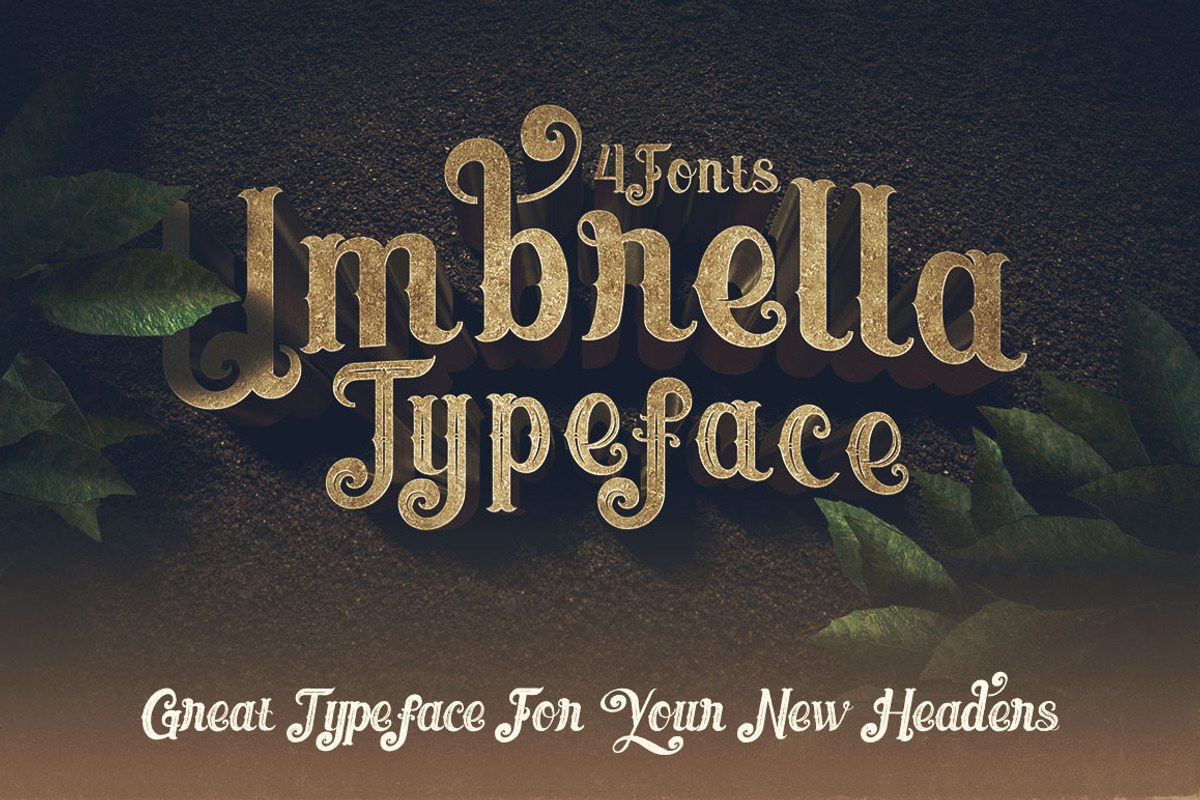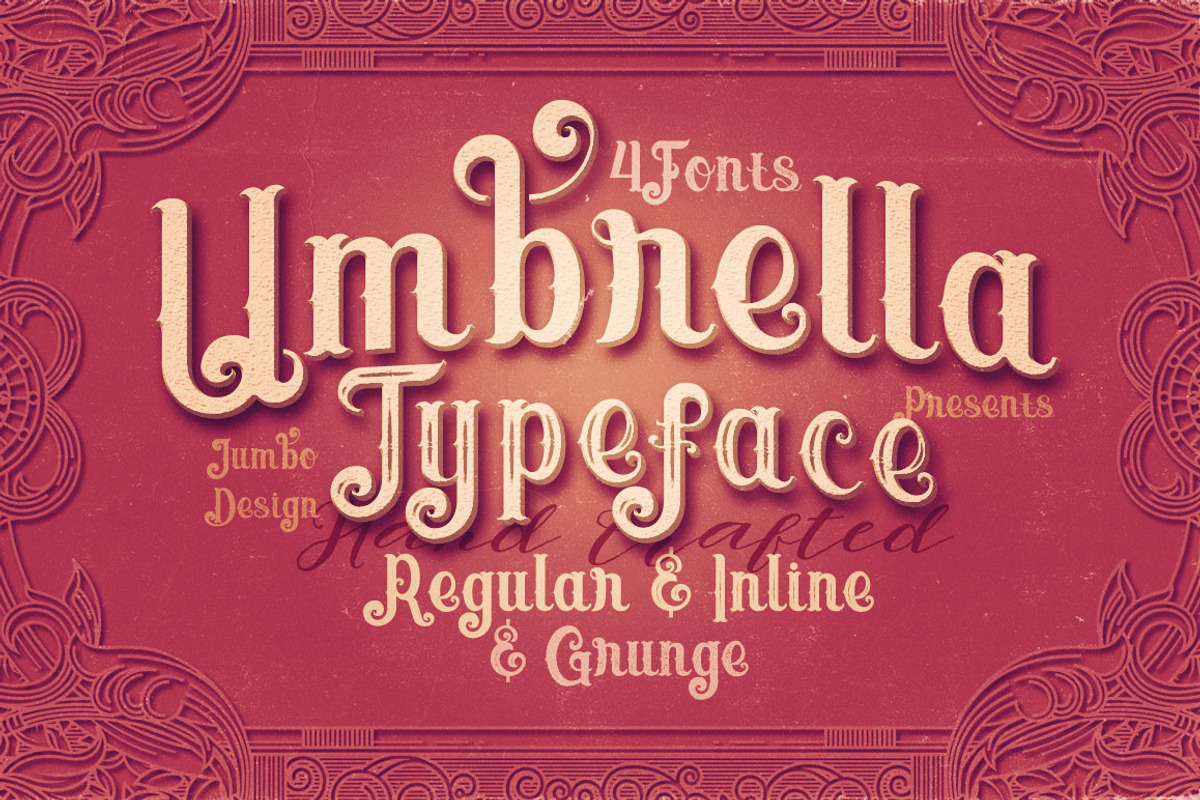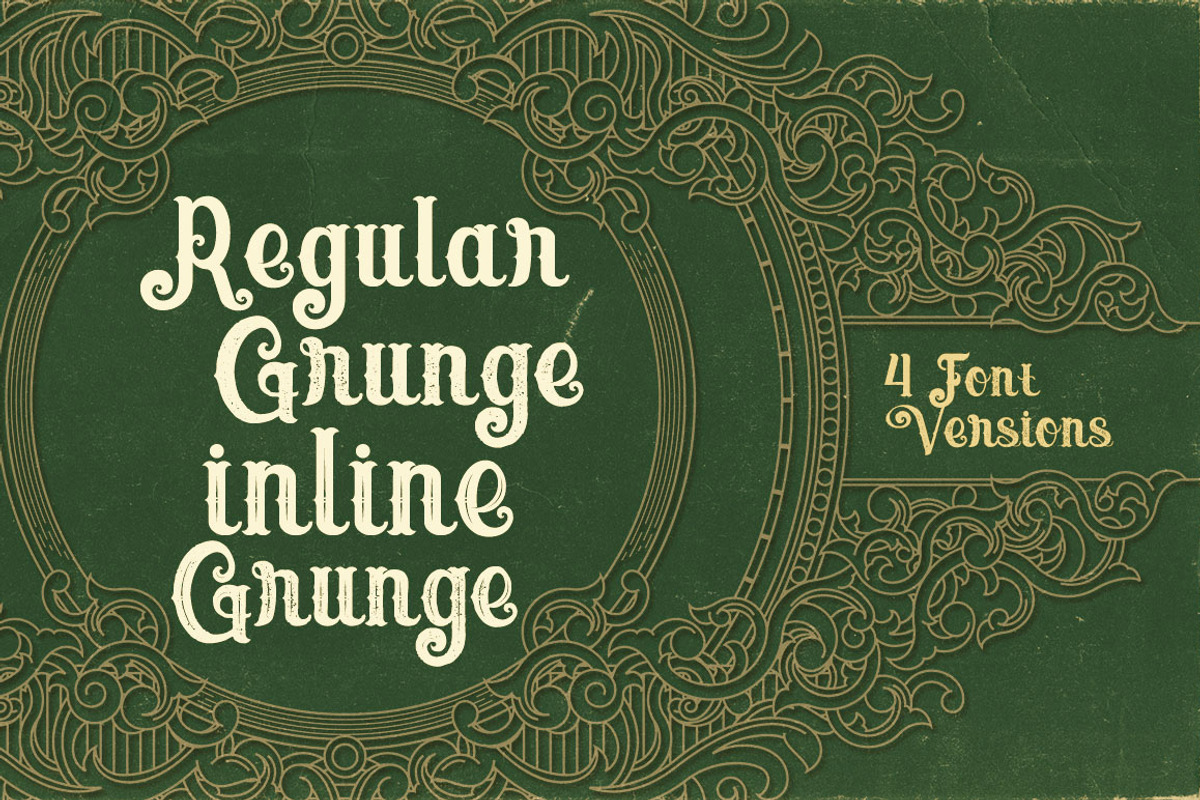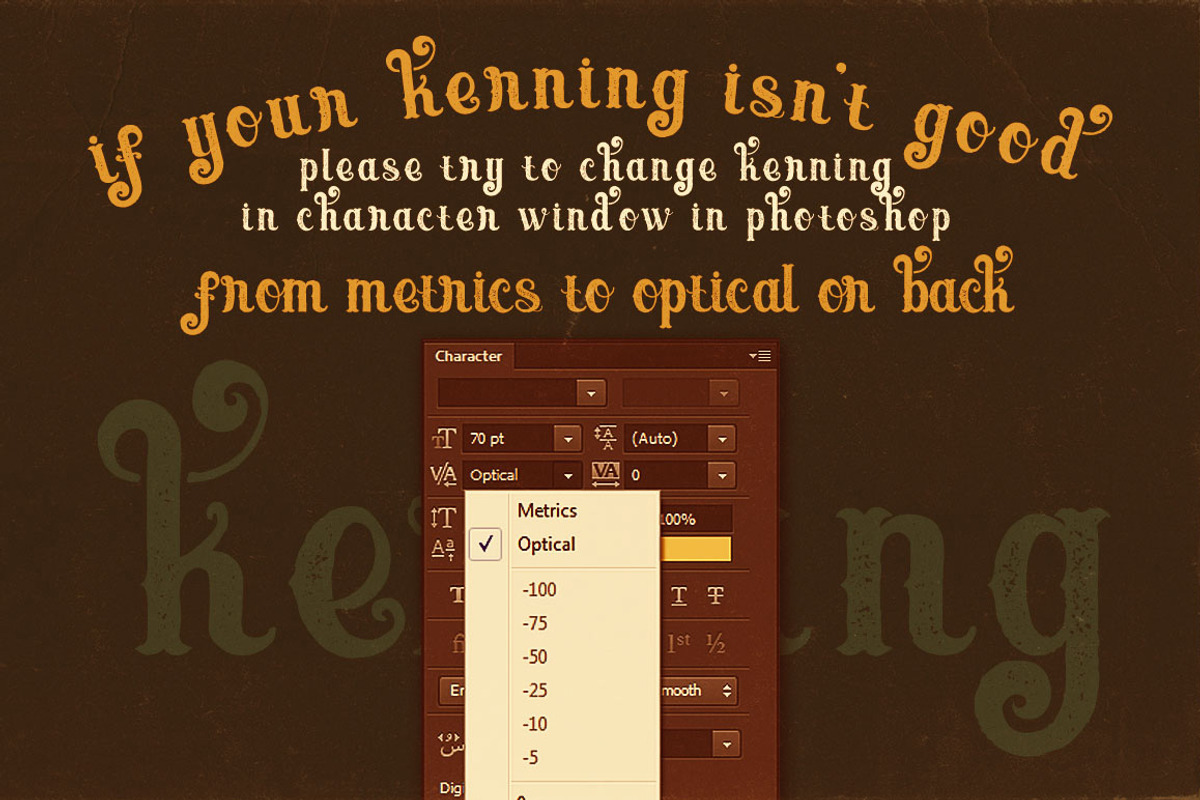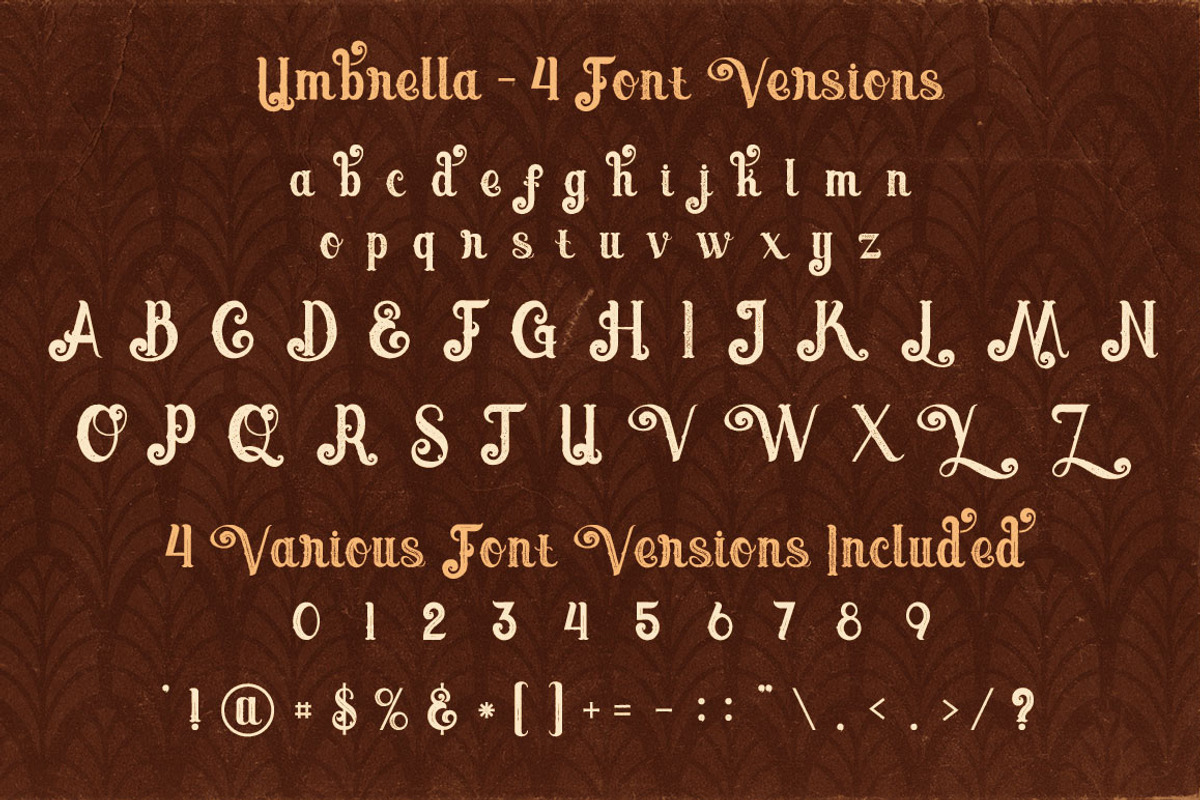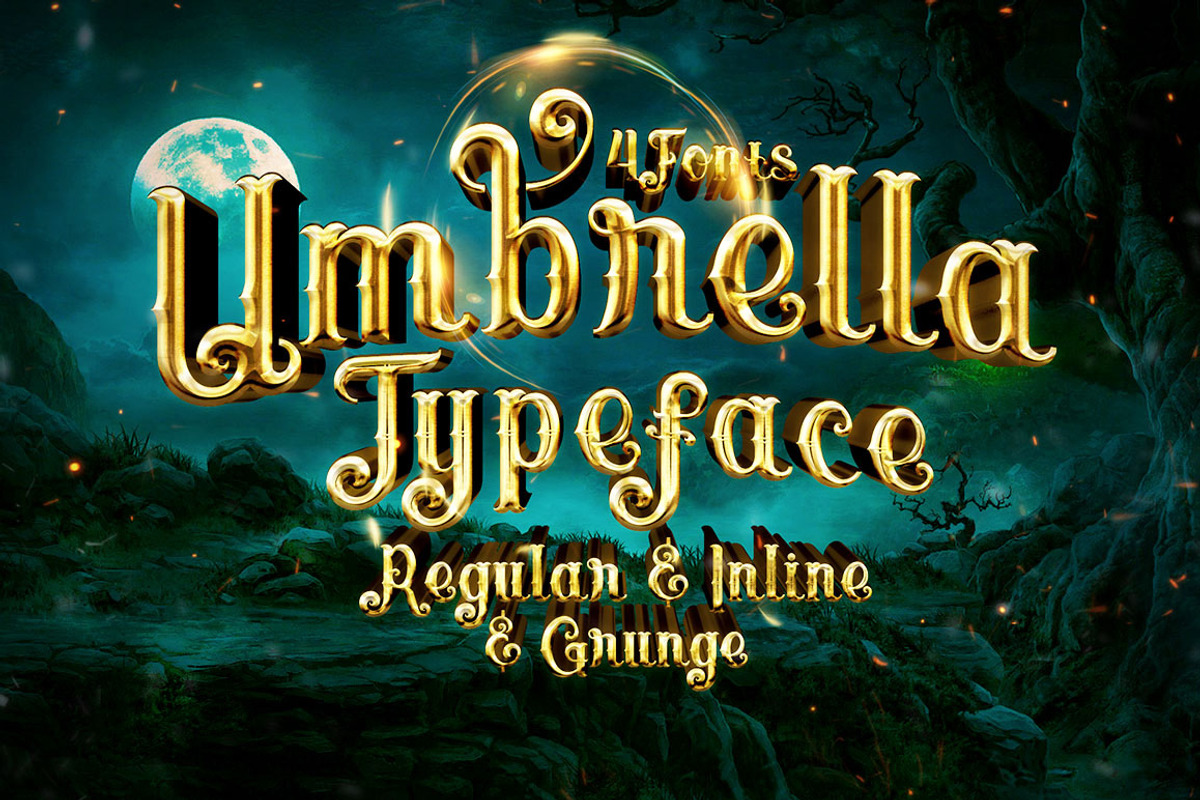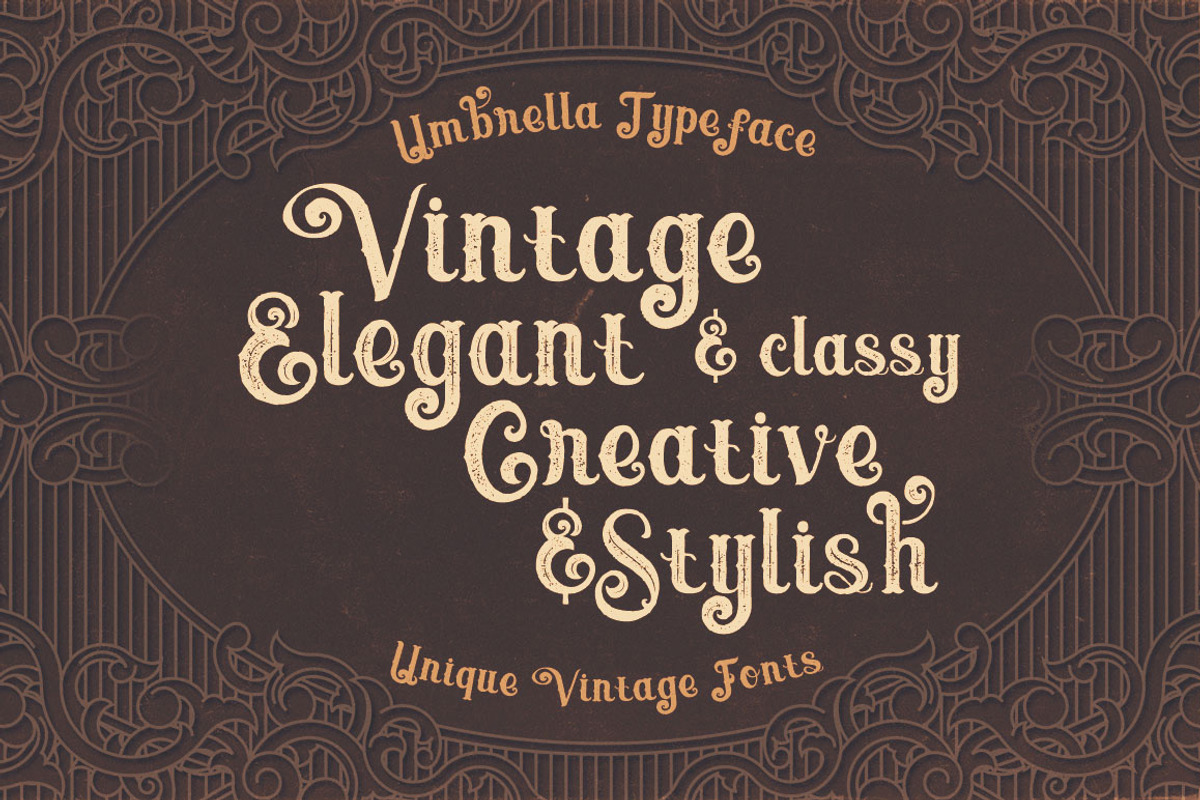
Umbrella - 4 Display Fonts
Unique vintage & ornamental or decorative style custom serif font with 4 styles: regular and grunge, inline and inline grunge.